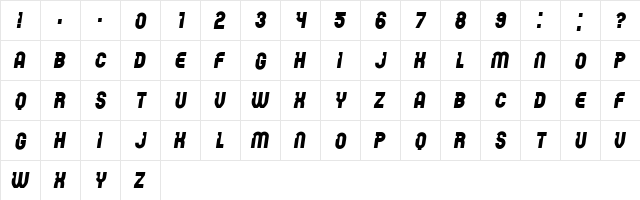
Password Book Italic
Design Context for Password Book Typeface
Password Book offers clean, dependable letterforms without strong stylistic allegiance, making it a practical choice for designers who need flexibility. Its italic angle brings a sense of urgency and motion to the letterforms.
Pro Tip: Try Password Book for annotation and caption copy alongside an upright companion — the contrast in angle creates a dynamic but ordered typographic system.